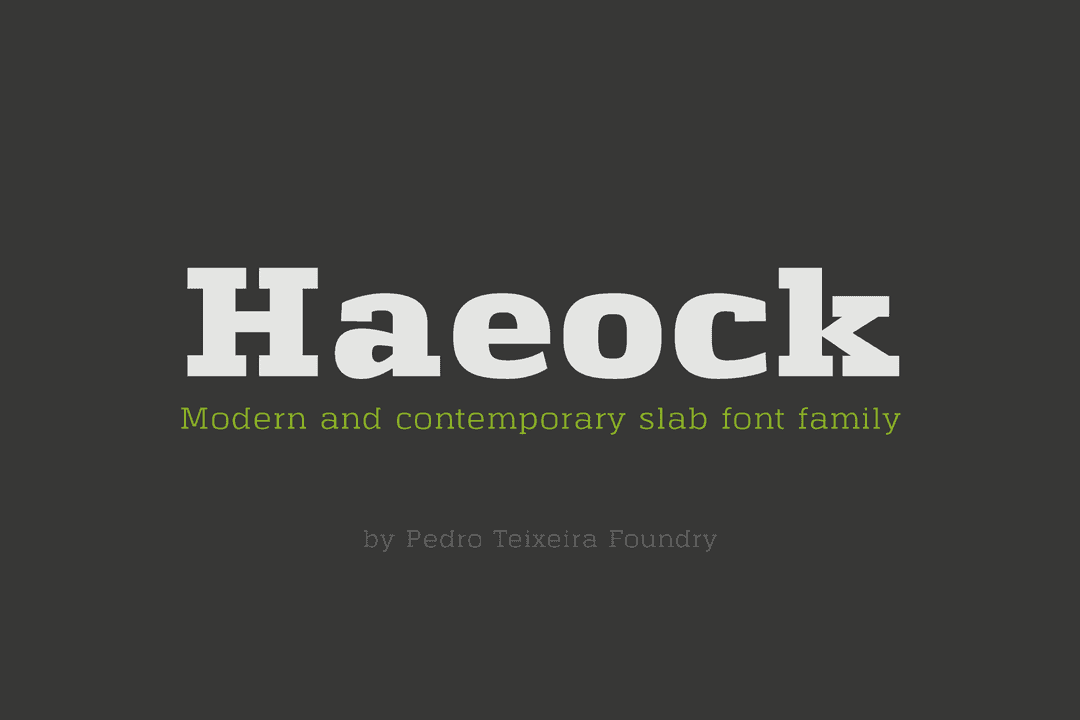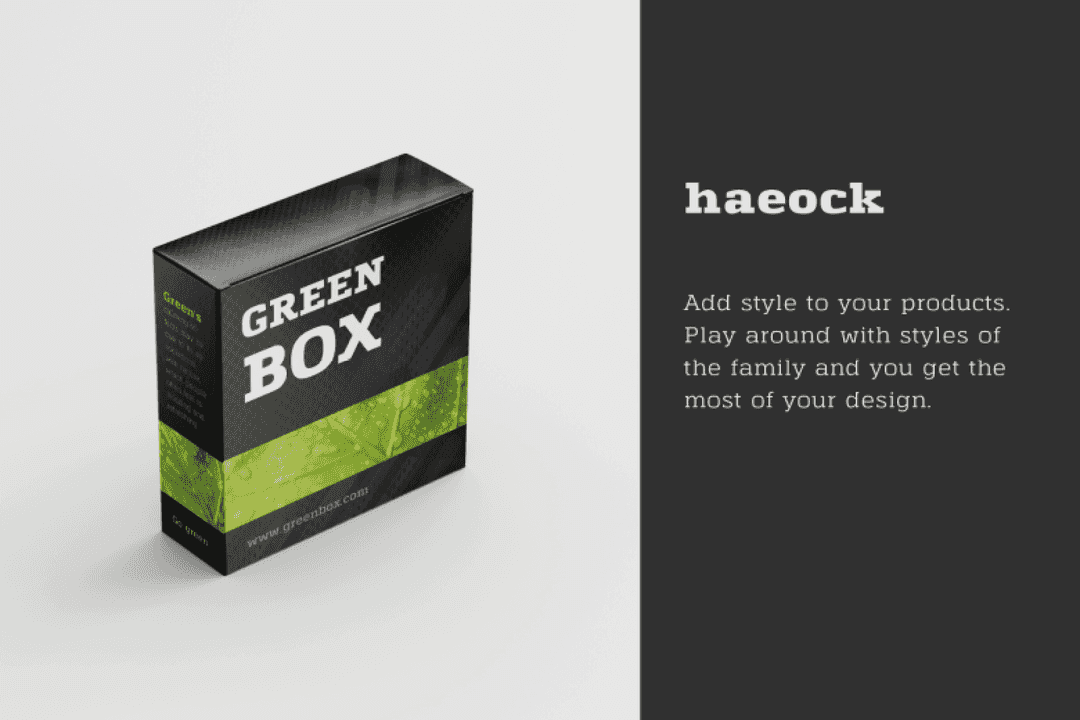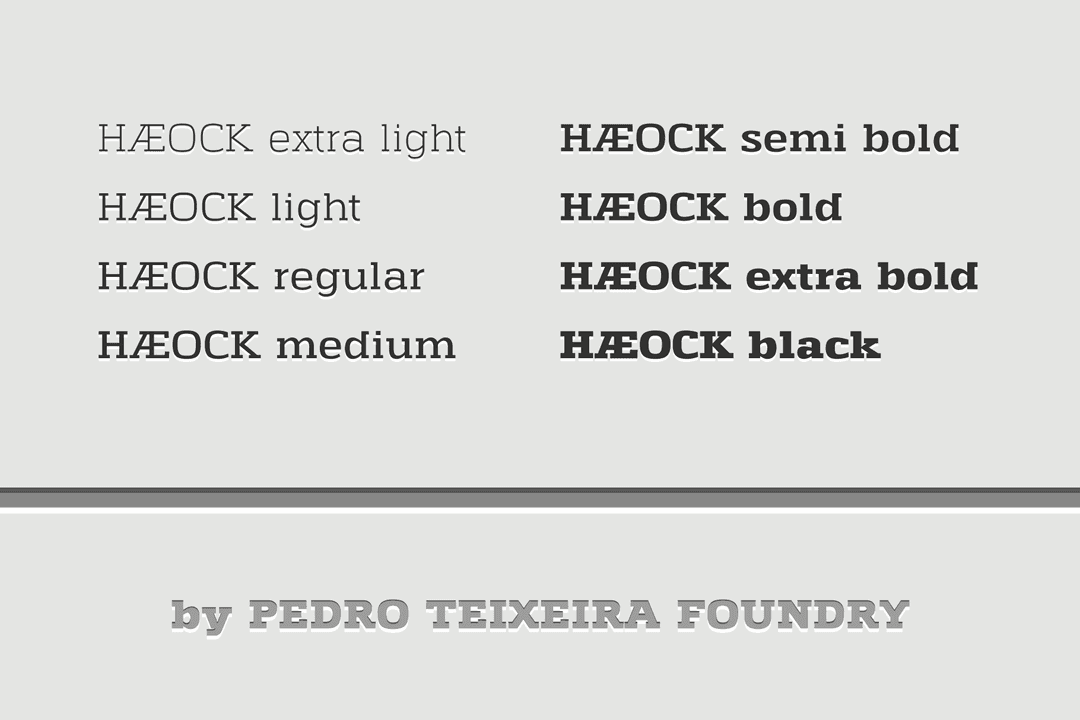
Haeock Font Family can be described as an elegant, vintage-styled and thickly-crafted slab serif typeface designed with care to make your designs truly original and attractive on various platforms. It will help make them truly standout!